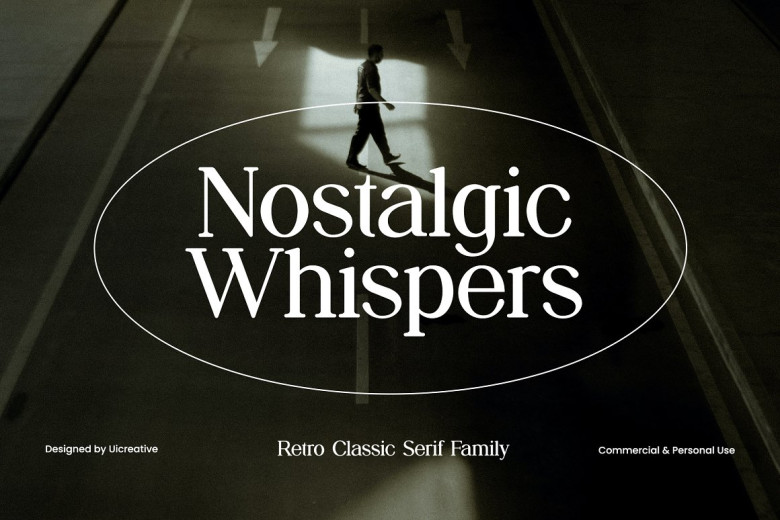
Nostalgic Whispers Font
Nostalgic Whispers is an elegant serif family from UICreative that can be used for various projects such as magazine covers, book covers, logos, wedding invitations, typography quotes and clothing design. Fashion-related branding and editorial design may also incorporate masculine as well as feminine qualities into their branding designs.
Nostalgic Whispers Serif Font